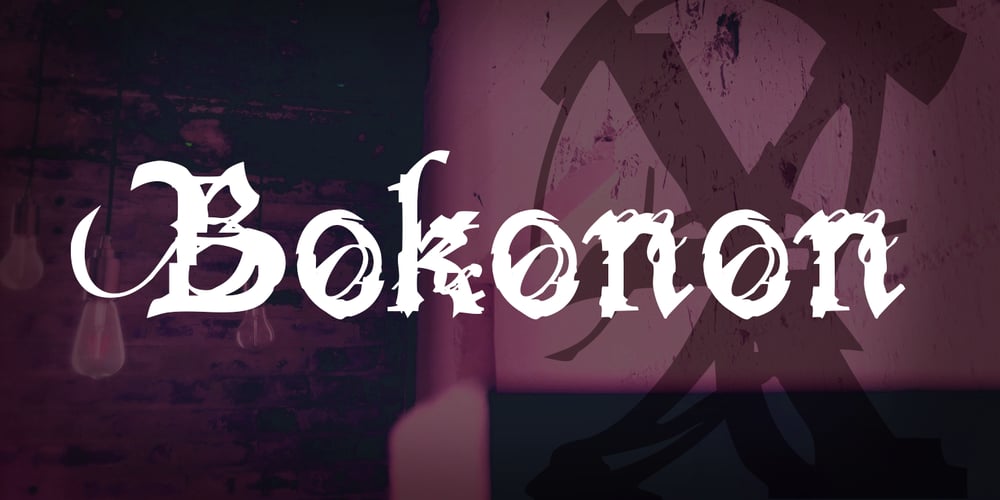
Bokonon Font Family was designed by Todd Dever and published by Cool Fonts. Bokonon contains 1 styles and family package options. Bokonon says this font looks like it could be used for anything from classic to grunge. It is a scripty conglomeration classic fonts and is sure to become one of your favorites. Pass the Ice 9 please.